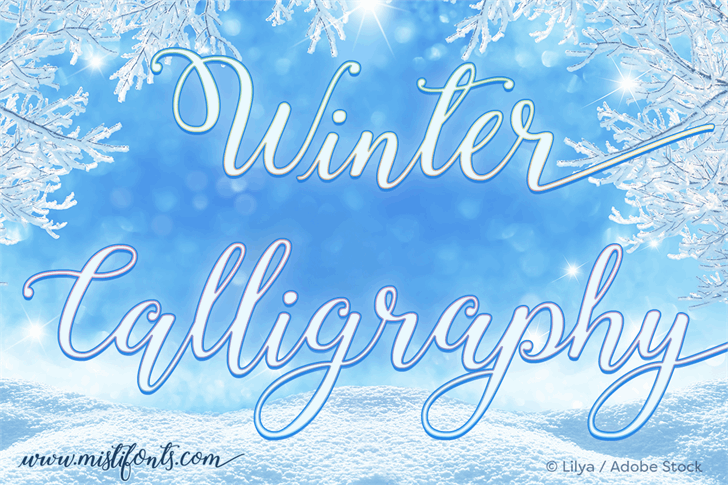
Free Winter Calligraphy Font
Featuring a free winter calligraphy font. Font Space has created this amazing and beautiful free font. Easily amaze your audience with this fancy font and make your graphic designs pop up from the crowd.